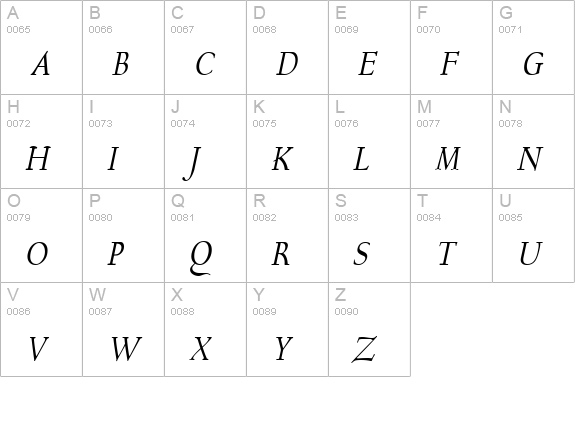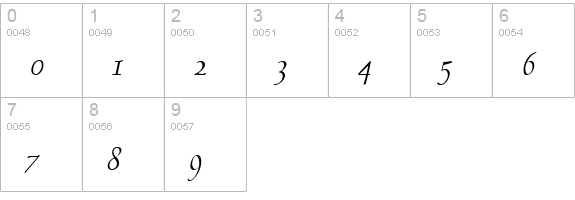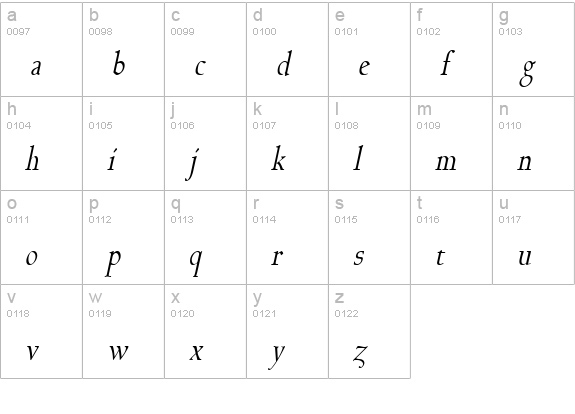
Bravo-Condensed Italic Font Details
Bravo-Condensed Italic is a distinctive, condensed-width, italic variant in the Bravo typeface family \xE2\x80\x94 well suited to design and typography projects.
Bravo-Condensed Italic is a sleek and modern font that exudes elegance and sophistication. Its condensed form adds a touch of stylish flair to any design project, making it perfect for fashion magazines, luxury branding, and sleek website headers. The italic style gives it a sense of movement and dynamism, adding a unique touch to your text. Best of all, Bravo-Condensed Italic is available for free download at FontsMarket.com. This means you can effortlessly elevate your designs without breaking the bank. Whether you're a professional designer looking for a versatile font or a hobbyist seeking to add a touch of class to your projects, Bravo-Condensed Italic is the perfect choice. Download it today and see the difference it can make in your designs!